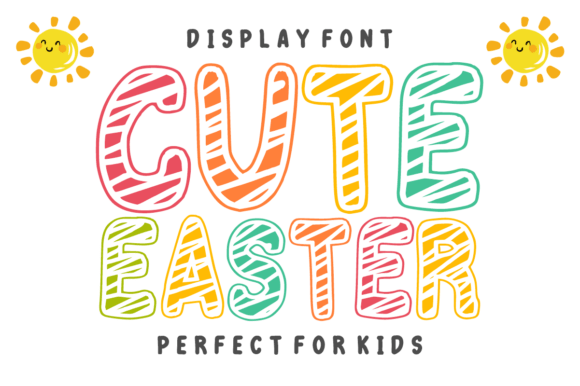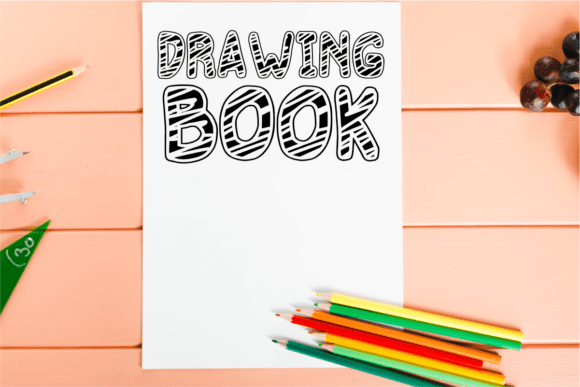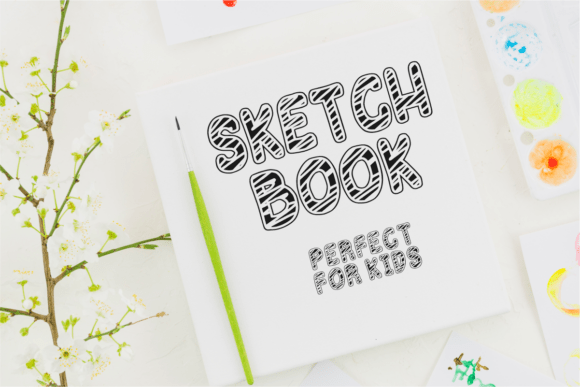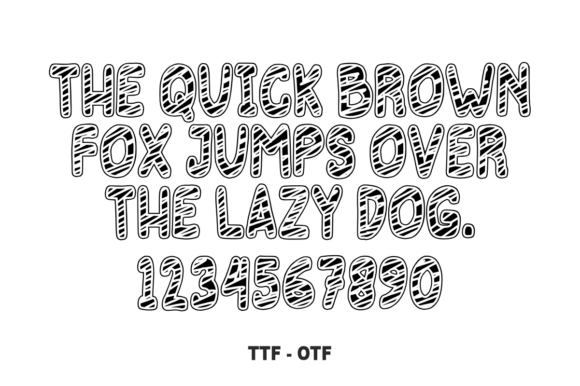
Get Ready for a Hoppy Design Adventure
Do you ever get that moment where you’re brainstorming ideas for a project and suddenly, the perfect font pops into your head? For designers, that ‘aha’ moment is what makes all the hard work worth it. And, if you’re anything like me, you’ve probably been searching for the perfect font to capture the playful spirit of spring and Easter.
Enter Cute Easter Font, a delightful display font that’s sure to bring a smile to your face. This hand-drawn, scribble-style font is designed to add a touch of handmade charm and youthful energy to your layouts. With its chunky outlines and playful patterns, Cute Easter is the perfect choice for any project that needs to feel friendly, seasonal, and full of life. Whether you’re creating Easter cards, kids’ t-shirt designs, or classroom posters, the Cute Easter Font is a valuable addition to any designer’s toolkit.
Cute Easter Font Key Features
- Unique Characteristics: Whimsical and playful design elements, including Easter-themed icons and graphics
- Script and Glyphs: Includes a wide range of Easter-related glyphs, such as eggs, bunnies, and flowers
Cute Easter Font Review
Overall, I think “Cute Easter Font” is a delightful addition to any spring-themed design project. ✨ The font’s playful, hand-drawn feel instantly conveys a sense of whimsy and fun, making it perfect for Easter cards, party invitations, and other festive designs.
- ✨ The font’s high-quality design is well-suited for both digital and print applications.
- ✨ The variety of font styles and sizes available makes it easy to mix and match to create unique designs.
- ✨ The font is fully editable, allowing for customization to suit your design needs.
- ⚠️ The font may not be suitable for formal or professional designs due to its playful, childlike feel.
- ⚠️ Some characters may not be available in certain font sizes or styles, which can limit your design options.
While “Cute Easter Font” has its limitations, I think it’s a great choice for designers looking to add a touch of springtime fun to their projects. With a little creativity, you can use this font to create eye-catching and engaging designs that are sure to delight your audience.
Getting the Most Out of the Cute Easter Font
Use the Cute Easter Font to add a playful touch to your designs, such as:
1. Easter-themed invitations and cards.
2. Spring-themed graphics and posters.
3. Children’s party decorations and invitations.
4. Digital scrapbooking and journaling.
The Cute Easter Font is perfect for:
1. Creating a whimsical Easter egg hunt invitation.
2. Designing a spring-themed social media post.
3. Adding a playful touch to a children’s birthday party invitation.